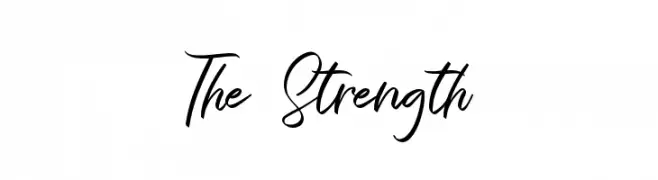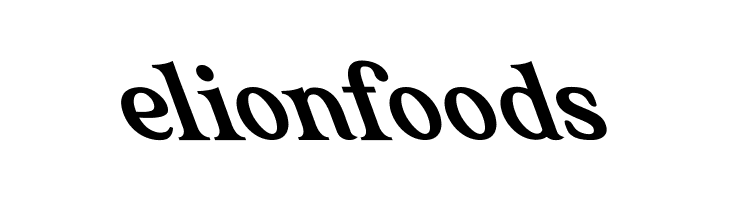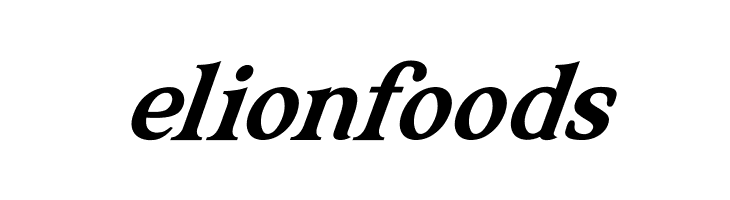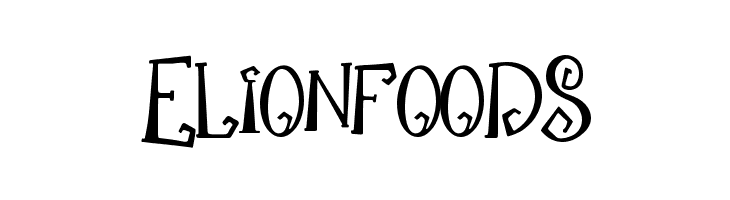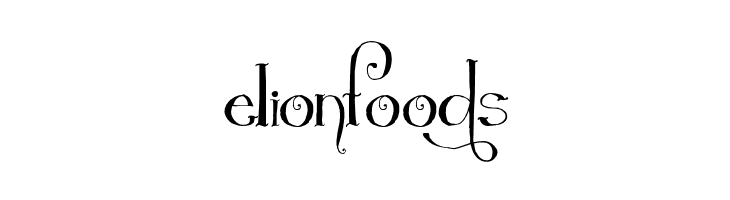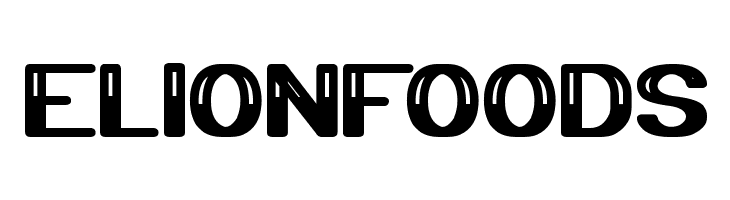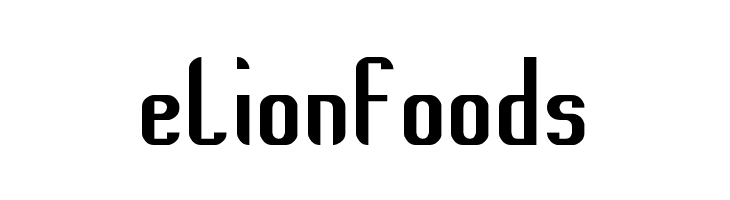
A playful font with characters inside triangular flags, ideal for festive designs.
A dynamic and elegant script font with fluid, cursive strokes.
An elegant italic font with a classic and sophisticated style.
An elegant oblique serif font with medium contrast and pronounced serifs.
A whimsical and playful font with quirky, irregular letterforms and magical embellishments.
A playful, flowing font with seamless connections and whimsical loops.
A whimsical and decorative font with elegant, flowing strokes and artistic flourishes.